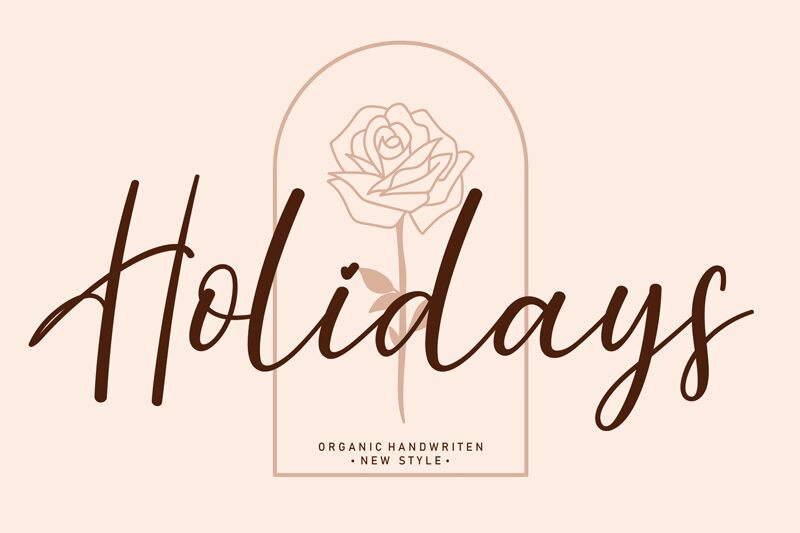
Holidays
Holidays, an organic handwritten font from scratchones, is the perfect choice for all your creative projects. Its light weight gives it a unique and elegant look that makes it suitable for everything from logo designs to invitations and greeting cards.
the latest style letters are perfect for wall displays, wedding invitations, social media post logos,
advertisements, product packaging, product designs, labels, photography, watermarks, invitations, stationery,
and any project that requires taste handwriting.